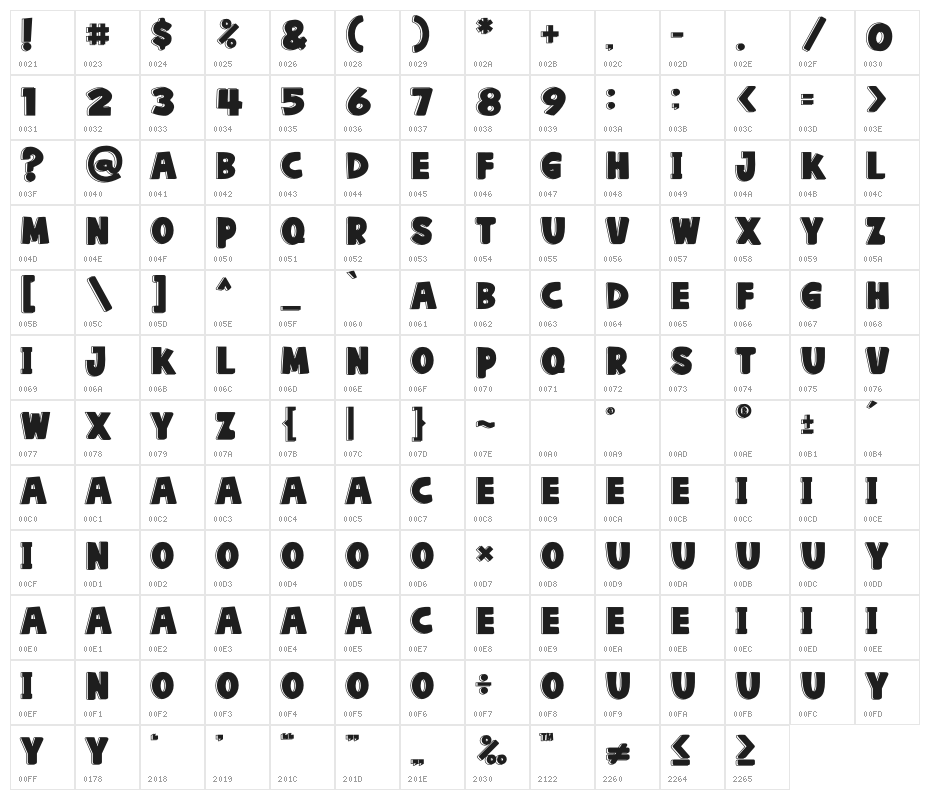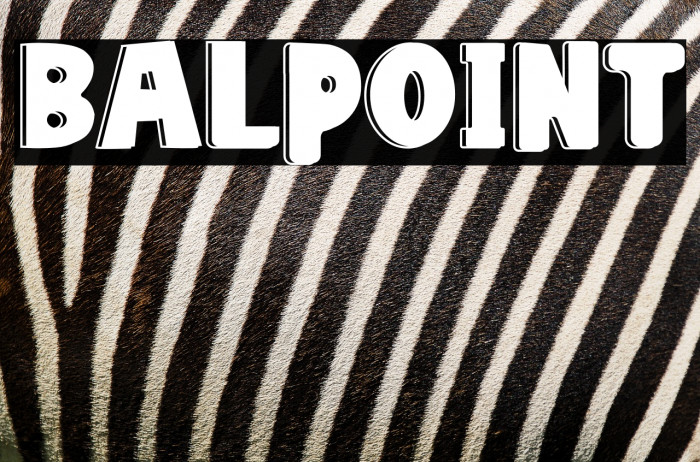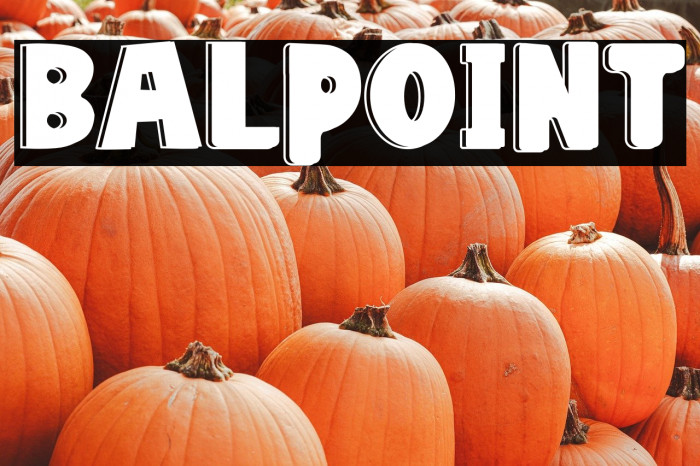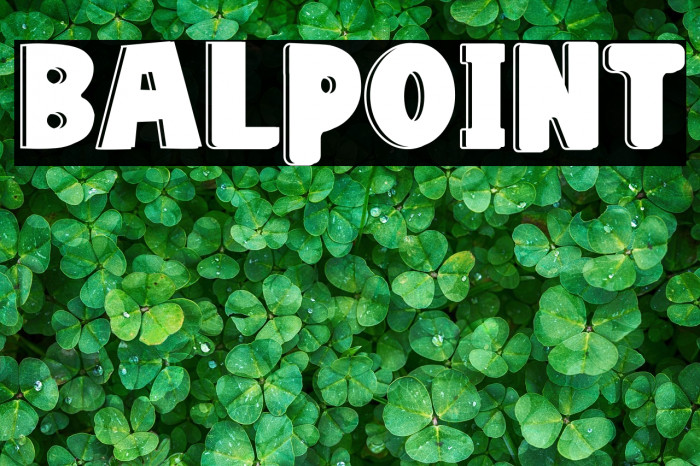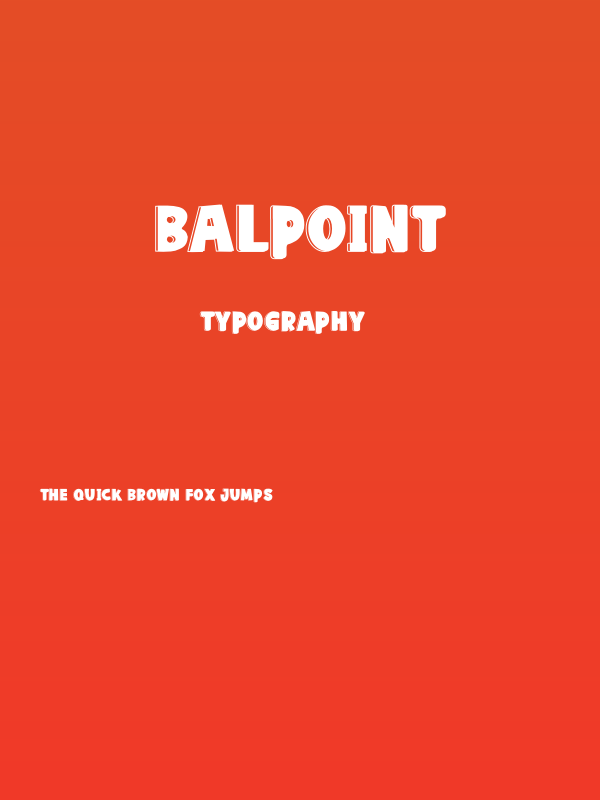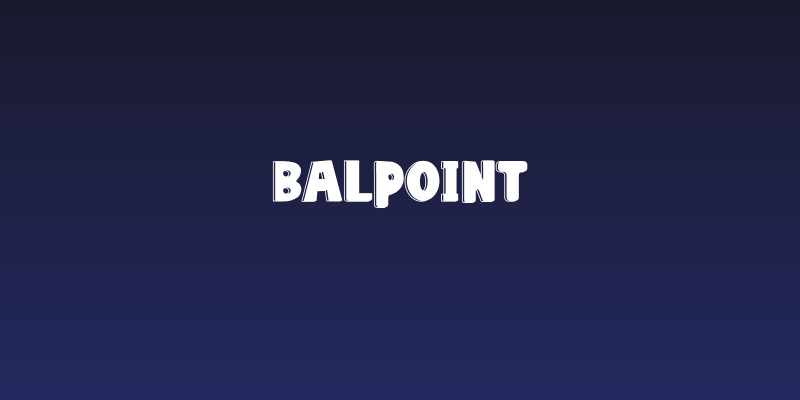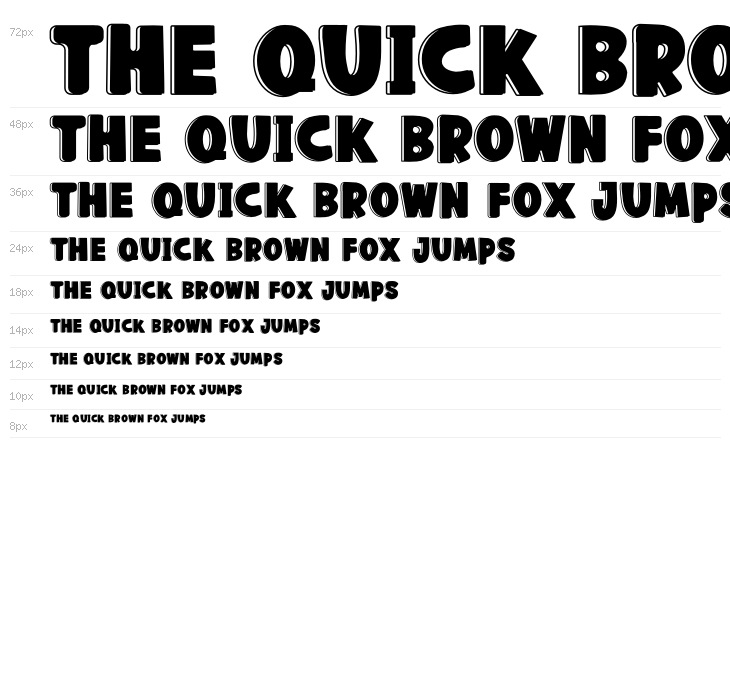
Balpoint Font
Balpoint Description
This font features a bold and playful style with thick, rounded characters that convey a sense of fun and creativity. The letters are designed with a slight slant, adding a dynamic feel to the text. The boldness of the characters ensures high visibility, making it suitable for attention-grabbing headlines or titles. The font includes a full set of uppercase and lowercase letters, numbers, and a variety of special characters, all maintaining the same playful aesthetic. The characters are closely spaced, enhancing the compact and cohesive look of the text.
| Overall Style | Playful, Fun |
| Proposed Projects | Ideal for children's books, playful branding, posters, and creative projects. |